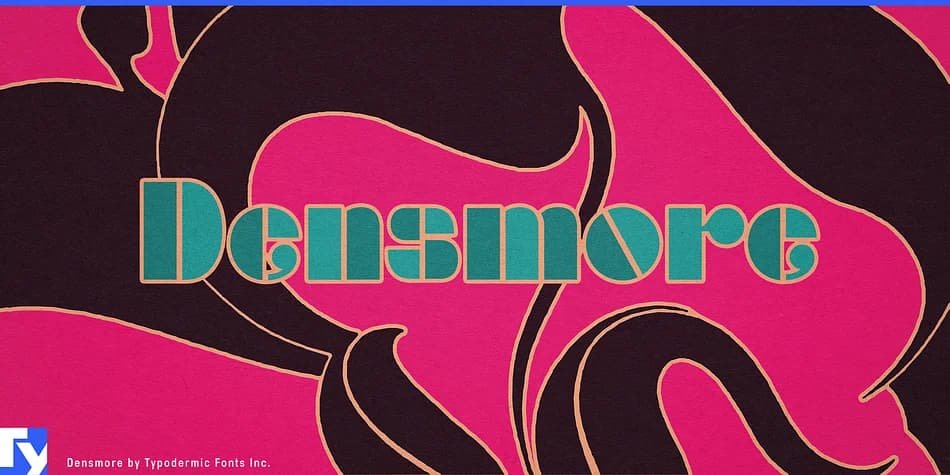
Picture a concert poster from the late 1960s, where geometric letterforms meet hand-drawn swagger and attitude. That's the spirit behind Densmore, created by Typodermic Fonts Inc. as a tribute to iconic band aesthetics and the visual language of that transformative era. The font channels that period's design energy through three distinct style variations (regular, blue, and pink) that let you layer and offset for dramatic effects, shifting colors to create genuine depth and visual movement.
You'll find this typeface works well for record label designs, vintage concert posters, retro product packaging, and festival artwork where you want unmistakable personality without sacrificing legibility. The geometric foundation keeps words readable at large display sizes, while the hand-drawn character edges prevent it from feeling too cold or mechanical. A built-in ligature automatically converts double lowercase "o" characters into mirrored pairs, a subtle detail that feels intentional and adds visual interest to headlines and brand wordmarks.
Densmore Font is a decorative font that shines as a display or heading face. Pair it with a clean sans-serif or serif font for body text β the contrast creates a clear hierarchy while the two styles stay balanced and easy to read.